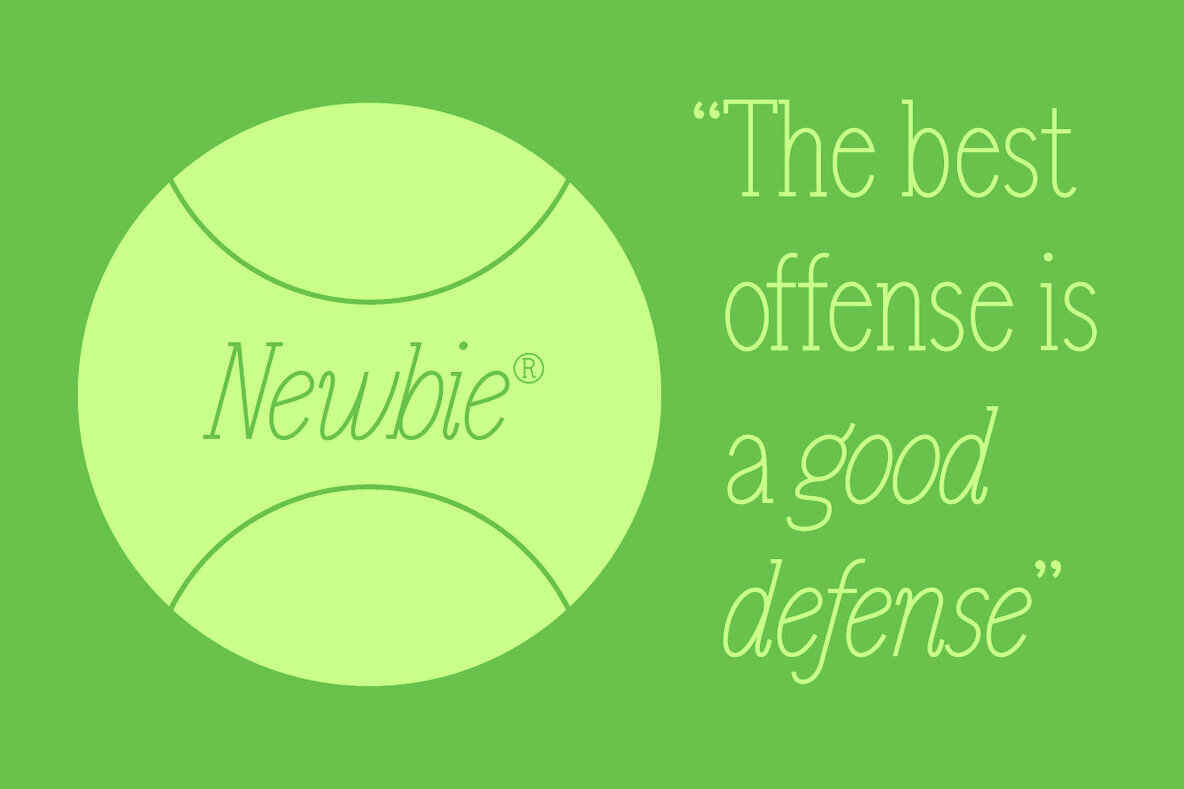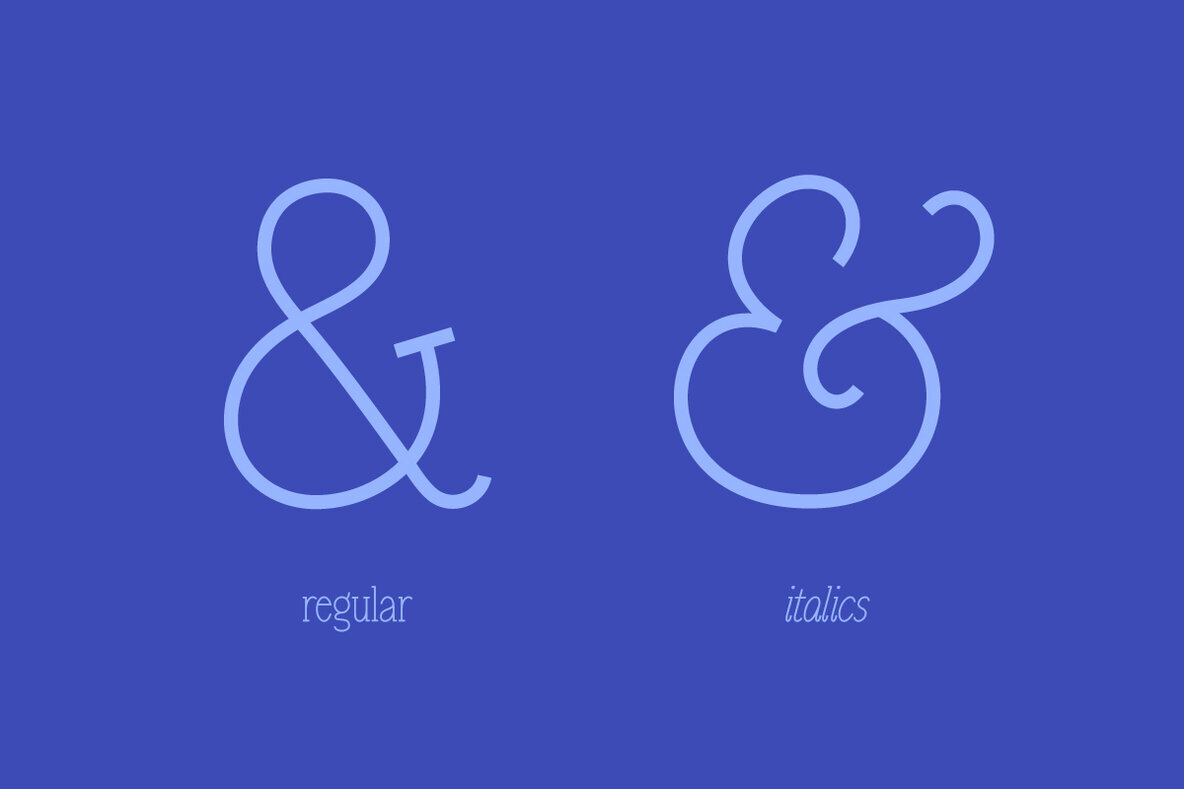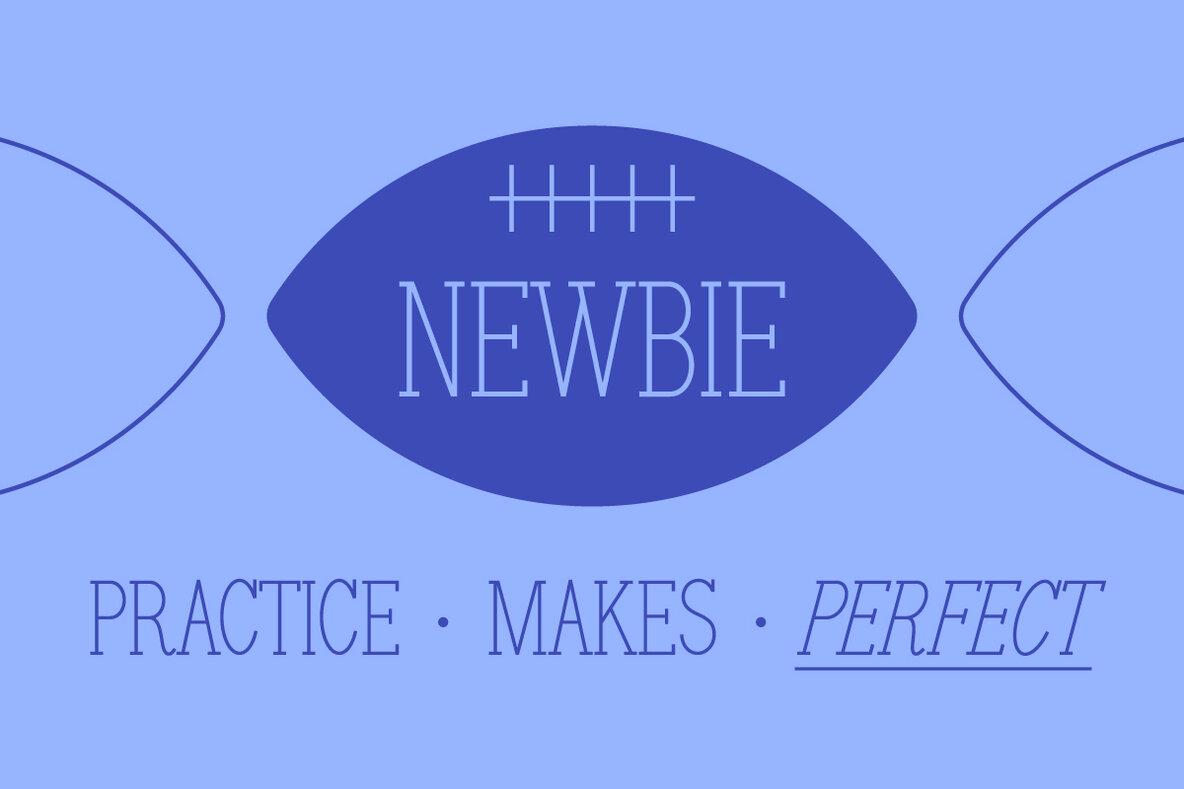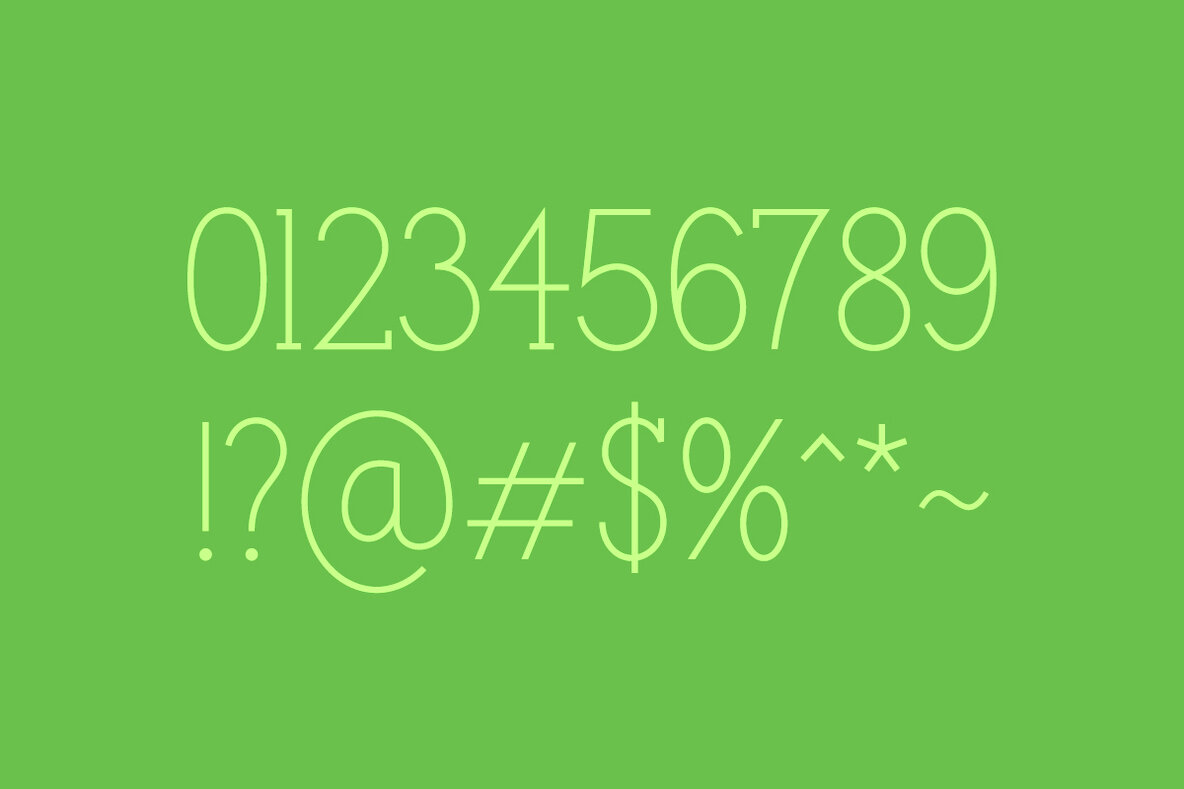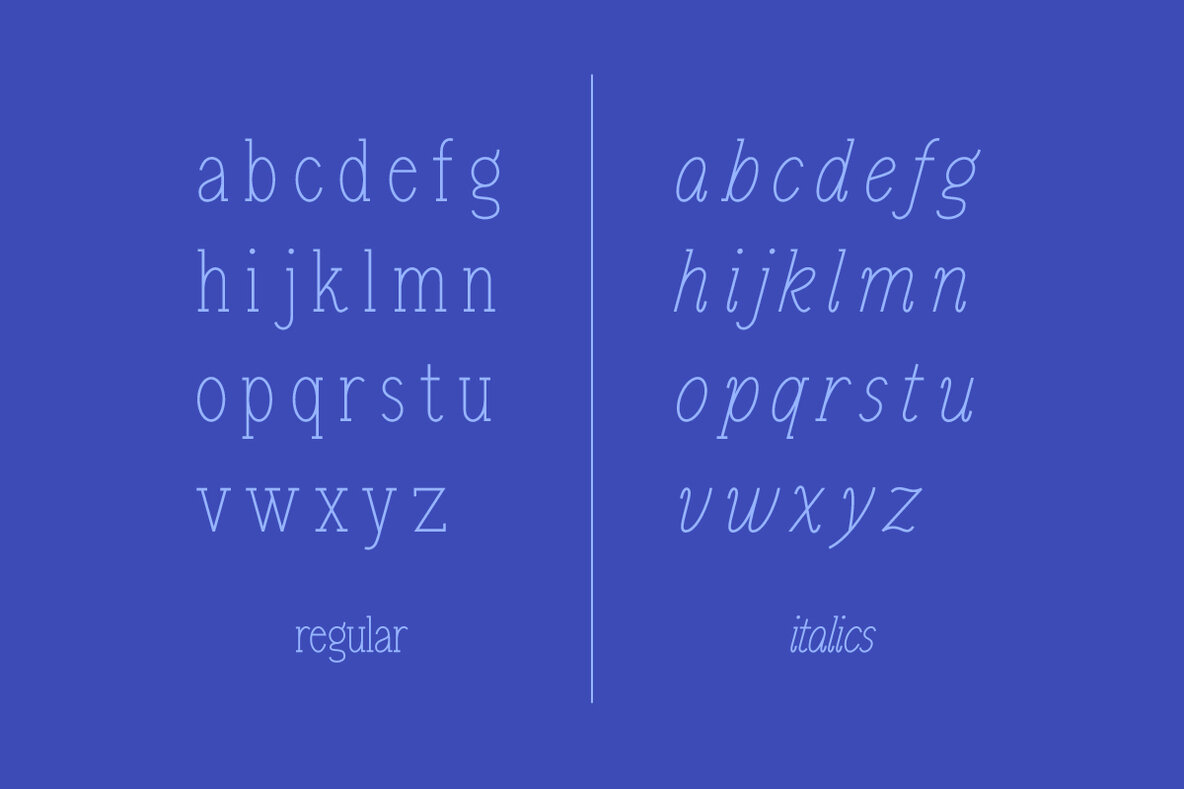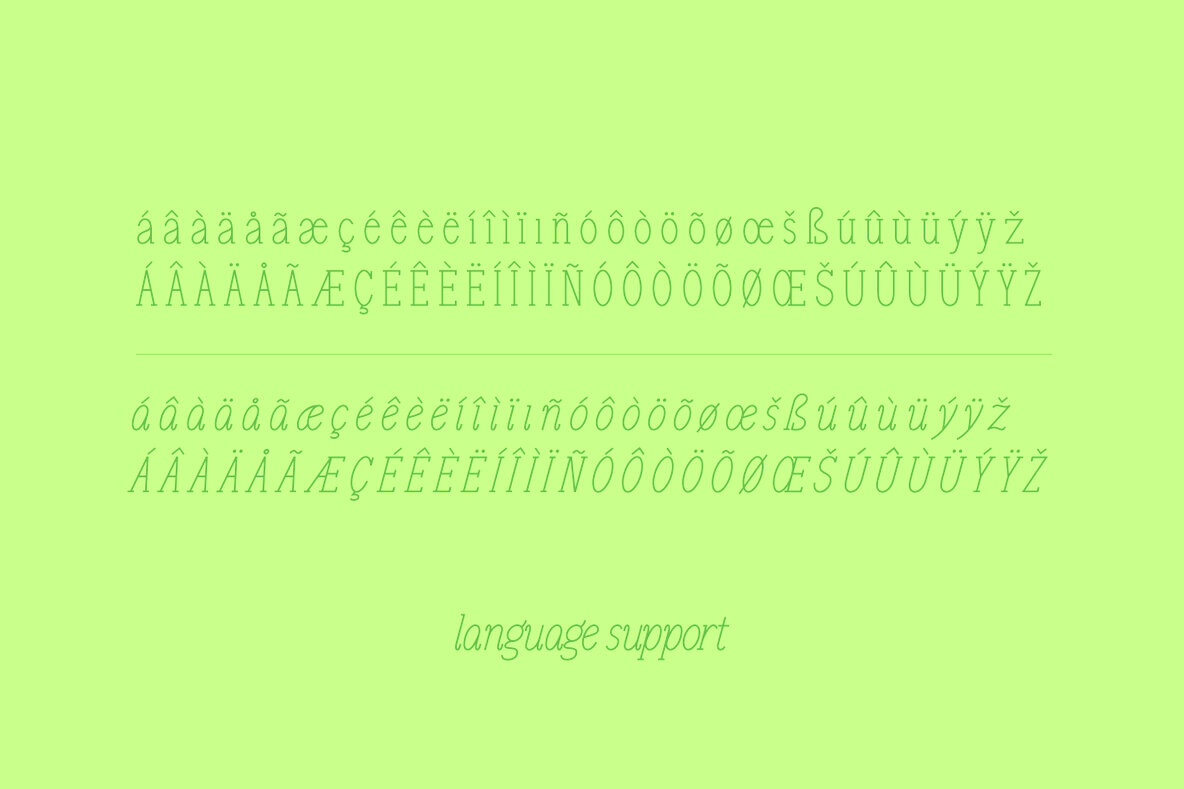
Newbie Font
Newbie
Newbie Italic
Newbie is a sleek, condensed monoline serif font available in both regular and italic styles. Inspired by vintage condensed serifs, it marries retro influences with a modern twist, making it versatile for a range of design projects. The clean lines and compact form lend themselves well to both digital and print mediums, offering a timeless yet contemporary feel. Its condensed nature is perfect for creating striking headlines, logotypes, and editorial layouts that require clarity without sacrificing style.
With its distinctive design, Newbie is adaptable across various creative projects, from branding to editorial design. Its monoline structure ensures readability while maintaining an elegant aesthetic appeal. This font is ideal for designers looking to incorporate a mix of classic and modern elements into their work, offering both functionality and a touch of nostalgic charm. Whether used in minimalist design compositions or more elaborate layouts, Newbie provides the flexibility needed to enhance visual communication effectively.